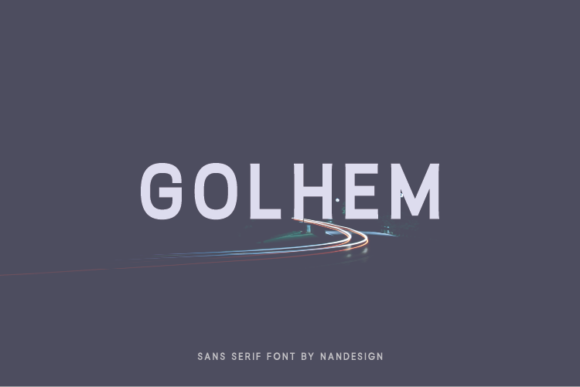
Enter the Golhem Font, a minimal and neat sans serif font that’s designed to elevate your creative ideas. With its clean lines and modern feel, Golhem Font is the perfect addition to any project, whether it’s a website, a logo, or a marketing campaign. Its versatility and timeless design make it a valuable asset for designers looking to make a lasting impression.
Golhem Font Key Features
- Font Family: Golhem Font is a sans-serif font family.
- Size: Golhem Font comes in 7 weights, ranging from Light to Black.
- Resolution: Designed for use at resolutions up to 300 DPI.
- Unique Characteristics: The font features a unique blend of modern and geometric elements, with clean lines and a high x-height, making it suitable for body text and titles.
Golhem Font Review
As a designer, I was excited to try out the Golhem font. Here’s my honest review:
The Golhem font has a unique and modern feel to it. It’s perfect for any project that requires a touch of sophistication.
The font is highly legible, even at smaller font sizes. This makes it ideal for body text and captions.
The font family includes multiple weights and styles, which gives designers a lot of flexibility when it comes to creating visually appealing typography.
The font may not be the best choice for projects that require a more traditional or classic look. Its modern feel may clash with older designs.
The font family is not as extensive as some other popular font families. This may limit its use in certain projects.
Overall, I think the Golhem font is a great addition to any designer’s toolkit. Its unique feel and high legibility make it a great choice for modern projects. However, its limitations may make it less suitable for certain projects. I would definitely recommend it for designers looking for a modern and sophisticated font.
Golhem Font is ideal for:
1. Creating a unique and eye-catching brand identity.
2. Designing promotional materials such as flyers and brochures.
3. Creating a distinctive and memorable visual style for your website or social media channels.
Alternatives to Golhem Font for Designers
Abril Fatface is a beautiful, elegant script font that’s perfect for adding a touch of sophistication to your designs. It’s ideal for use in titles, headings, and other text elements where you want to create a sense of luxury and refinement.
Compared to Golhem Font, Abril Fatface has a more classic and traditional feel, while Golhem Font has a more modern and minimalist aesthetic. Abril Fatface is also more ornate, with intricate flourishes and details that set it apart from the cleaner lines of Golhem Font.
Lato is a modern sans-serif font that’s highly versatile and suitable for a wide range of design applications. It’s a great choice for body text, titles, and other elements where you need a clean and readable font that’s easy on the eyes.
Compared to Golhem Font, Lato has a more straightforward and simple design, while Golhem Font has a more distinctive and unique aesthetic. Lato is also more neutral and doesn’t have the same level of expressiveness as Golhem Font.
Playfair Display is an elegant and luxurious script font that’s perfect for use in high-end designs, such as luxury brands, fashion, and fine dining. It’s ideal for creating a sense of opulence and sophistication, and its unique letterforms and flourishes make it stand out from other fonts.